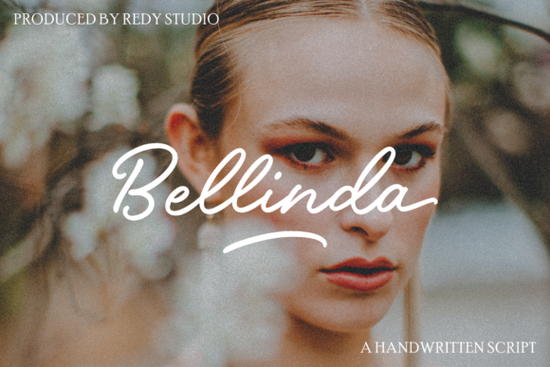
If you're looking for a modern calligraphy font that feels both elegant and approachable something that works as well on a handmade greeting card as it does on a boutique Shopify banner Bellinda – Modern Calligraphy Fonts Font is worth your time. It’s a vintage-styled, delicate script with clean lines and subtle flourishes, designed to feel personal without being overly ornate. Unlike some script fonts that demand perfect spacing or complex OpenType features, Bellinda is PUA encoded, meaning all its alternate characters, swashes, and ligatures are easy to access in any standard design app even free ones like Canva or Google Fonts-compatible editors.
What makes Bellinda different from other script fonts?
Most script fonts fall into one of two camps: either they’re highly decorative (hard to read at small sizes) or too minimalist (lacking personality). Bellinda sits comfortably in the middle. Its lowercase letters have gentle curves and soft entry/exit strokes, while capitals include tasteful swashes you can toggle on or off depending on context. Because it’s PUA encoded, you don’t need special software or knowledge of glyph panels you just type, then swap in alternates using the character map or font menu. That simplicity matters whether you’re designing wedding invites in Affinity Designer or mocking up a t-shirt graphic in Cricut Design Space.
Where does Bellinda work best?
This font shines in projects where warmth and intention matter:
- Small business branding Think café menus, local bakery labels, or handmade soap tags.
- Print-on-demand products It pairs beautifully with soft pastel backgrounds on mugs, tote bags, or wall art prints.
- Digital content Used thoughtfully in Instagram story text overlays or email headers, it adds quiet sophistication without competing with your message.
- Crafting and papercraft Cut files for vinyl or paper cutting come out crisp, and the spacing holds up even at 12–14 pt sizes.
You’ll also find Bellinda featured in the Creative Fabrica class Creating Your Own Water Mark Videos, where it’s used to add subtle, hand-lettered watermarks over video thumbnails proof that it reads clearly even when scaled down or layered semi-transparently.
How does it compare to other popular script fonts on Creative Fabrica?
Bellinda shares shelf space with several well-loved scripts but each serves a slightly different purpose. For example, Aaksaraan Rouleur leans more playful and bouncy, great for kids’ party invites or fun product packaging. Melamine has stronger contrast and sharper terminals, making it ideal for logos needing visual weight. If you love whimsy, Funny Dreams brings lighthearted charm, while Love Islan offers a smoother, more connected flow for romantic or feminine themes. Bellinda stands out for its balance: not too fragile, not too bold just quietly confident.
Before adding Bellinda to your next project, keep these simple things in mind:
- Test readability early Try it at 16 pt in paragraph form, not just as a headline. Script fonts vary widely in legibility for body text.
- Pair it intentionally A clean sans-serif like Montserrat or Lato makes an excellent companion for contrast and clarity.
- Check your software’s glyph support While PUA encoding helps, some apps (especially older versions) may not display swashes unless you manually insert them via the character viewer.
If you already own other script fonts and are wondering whether Bellinda fills a gap in your library it likely does. Its gentle vintage tone sits between the airy lightness of Funny Dreams and the structured elegance of Melamine, giving you another reliable option when “just right” matters more than “flashy.”